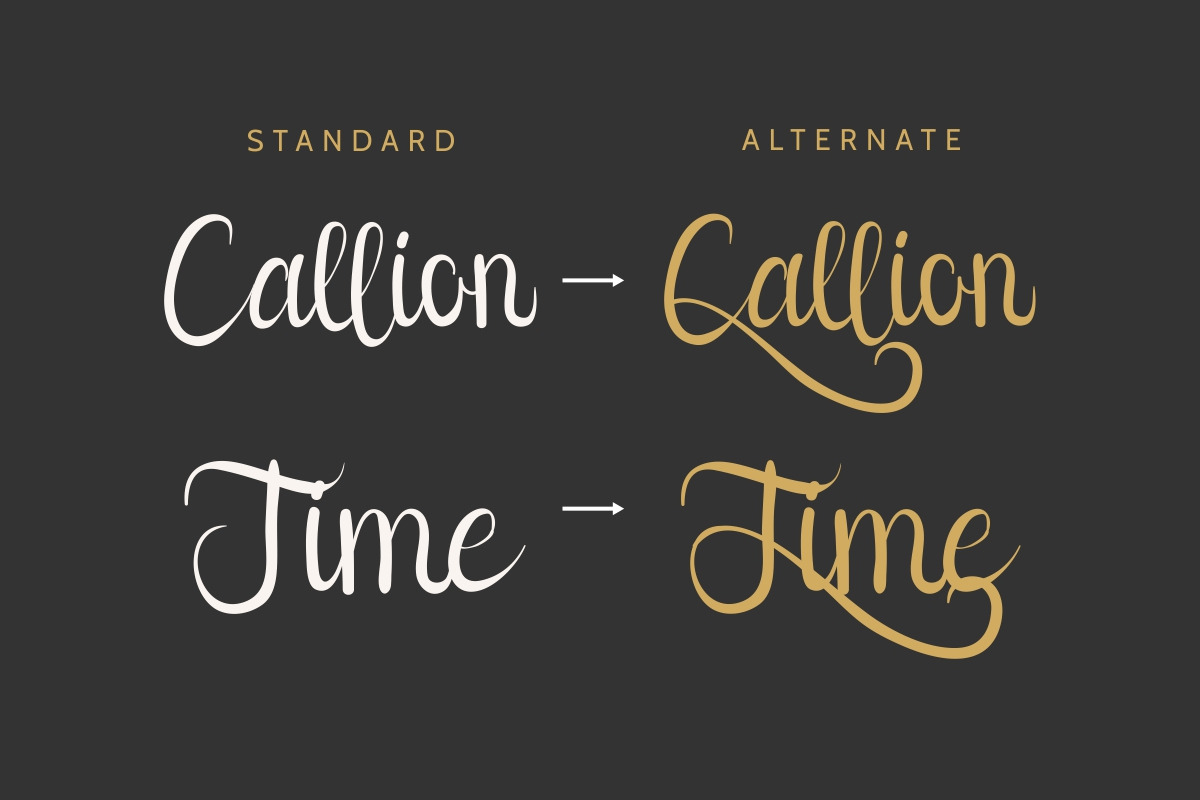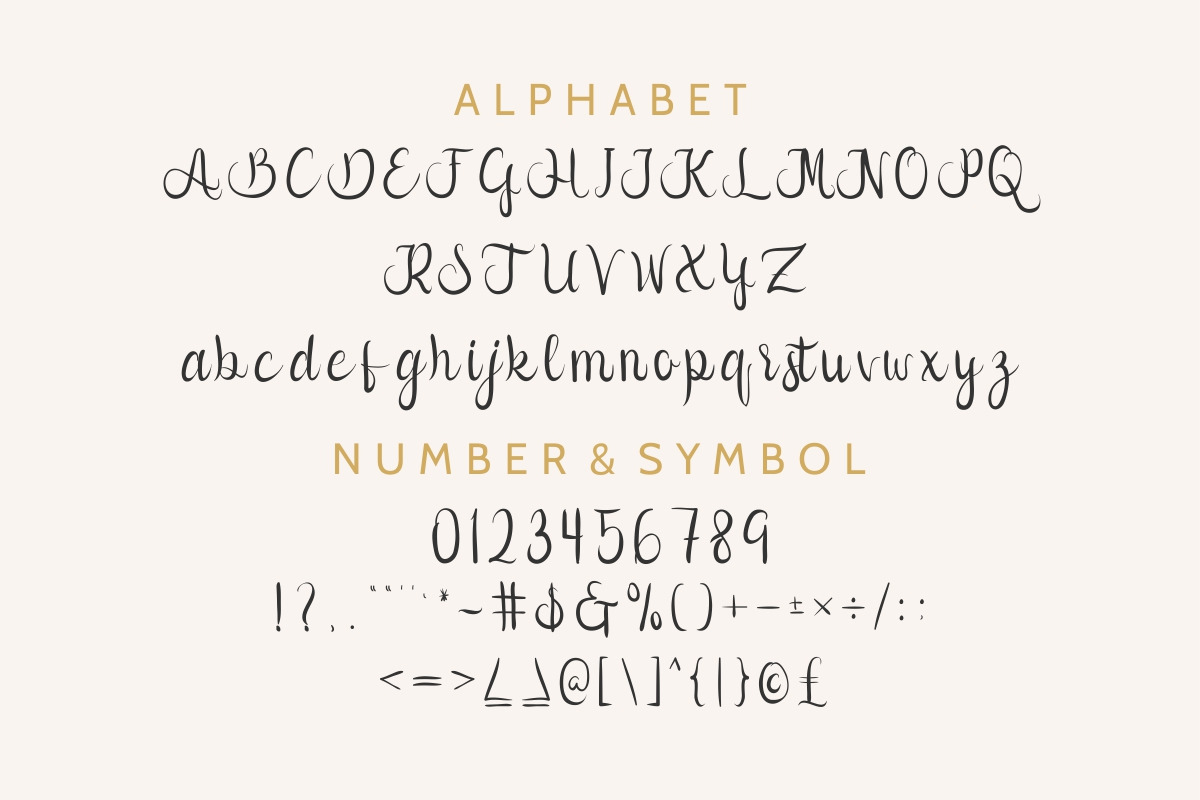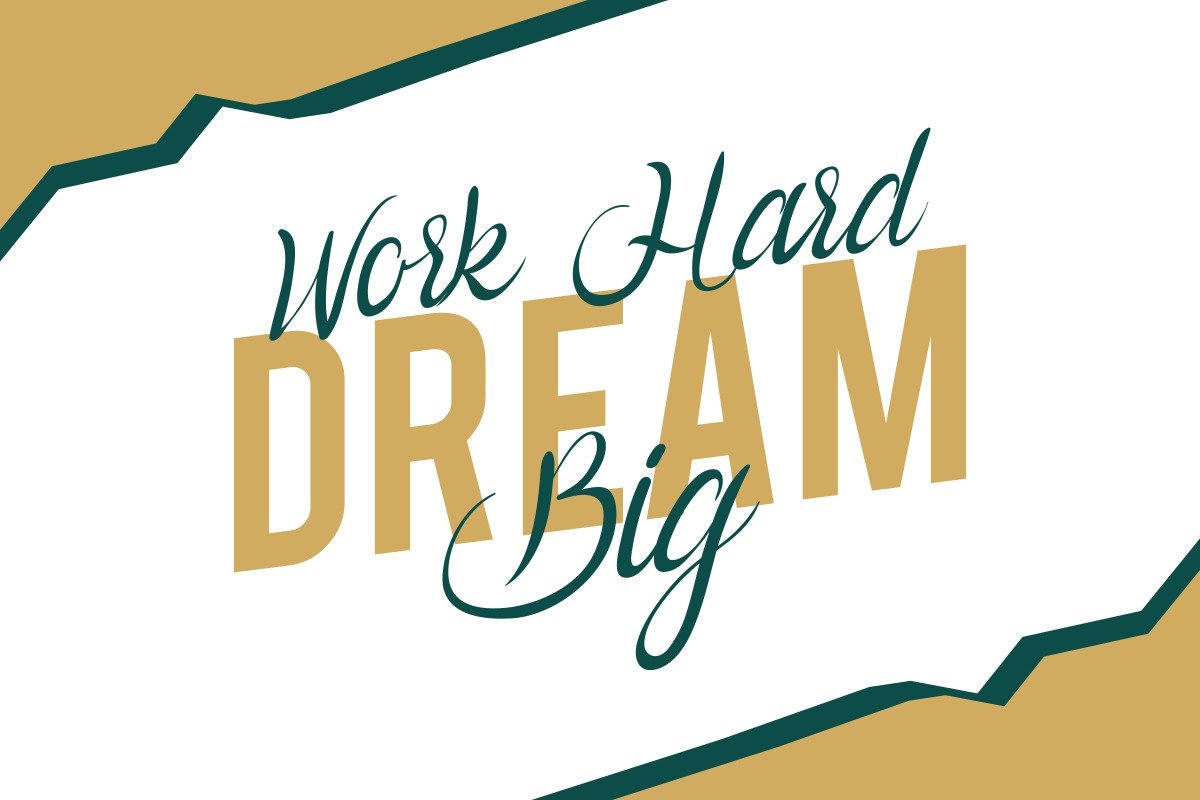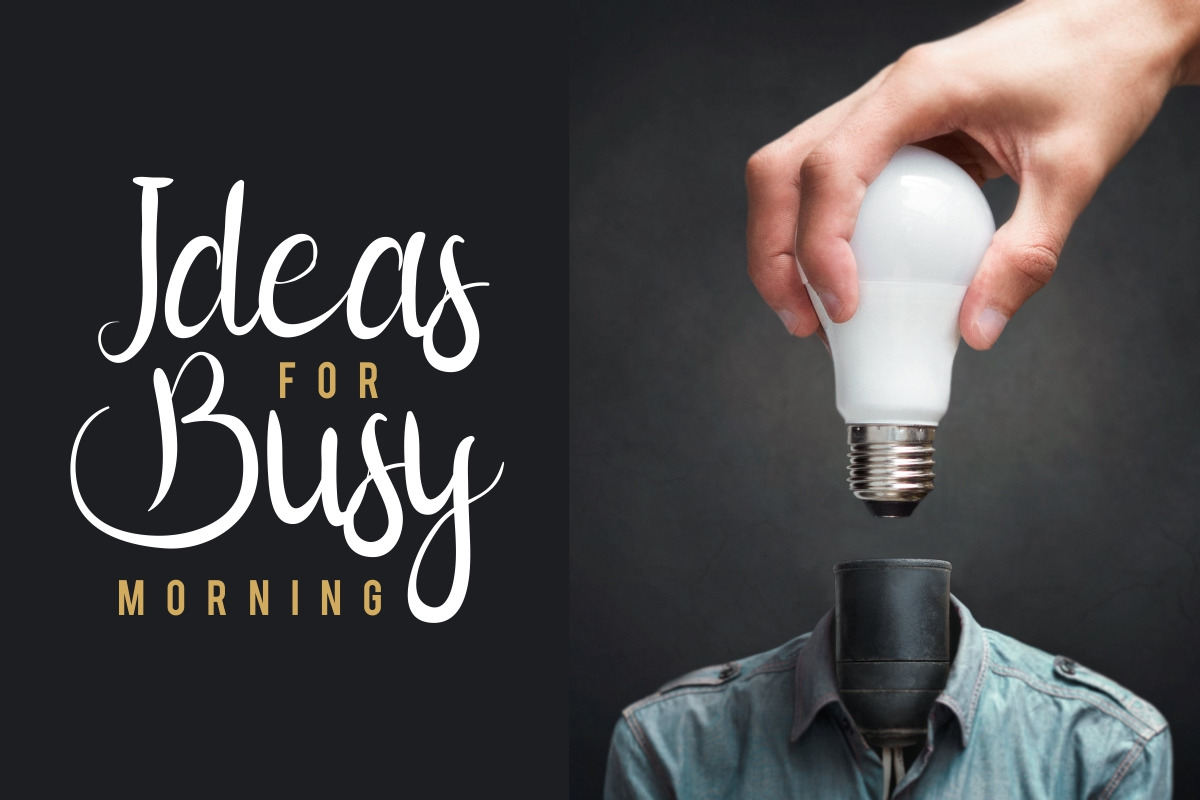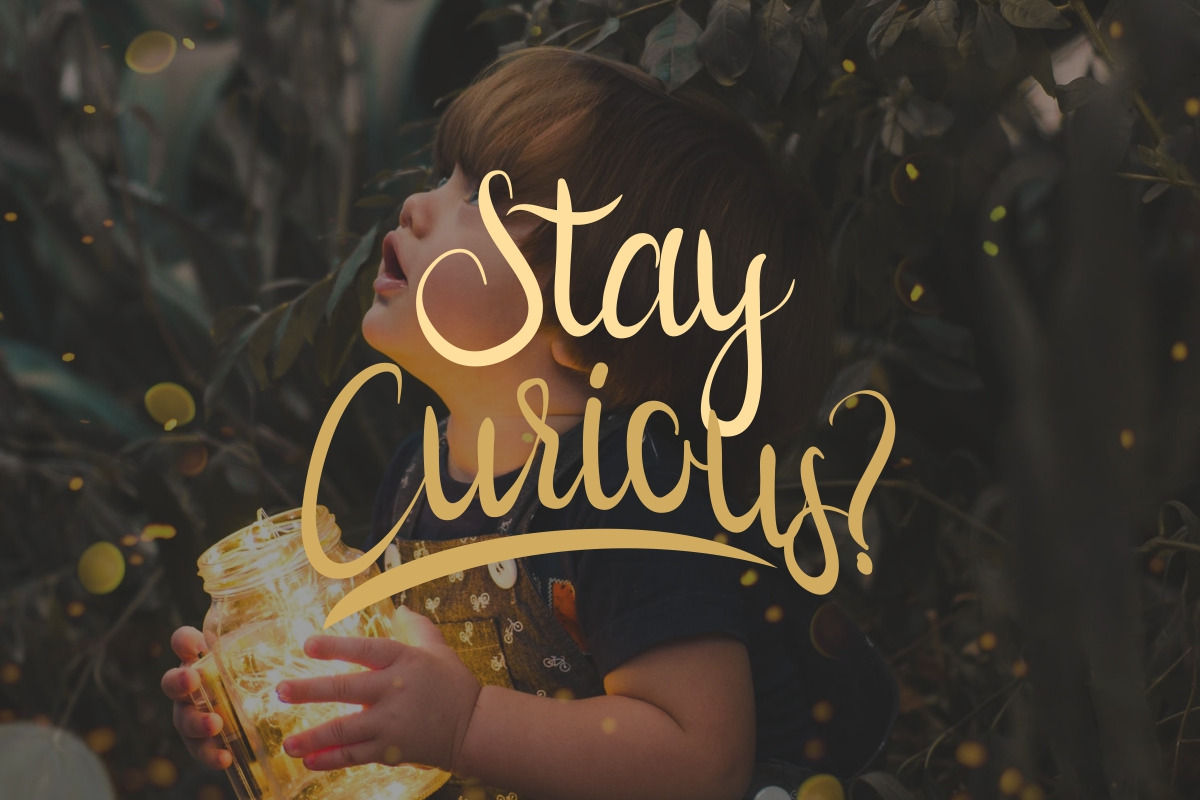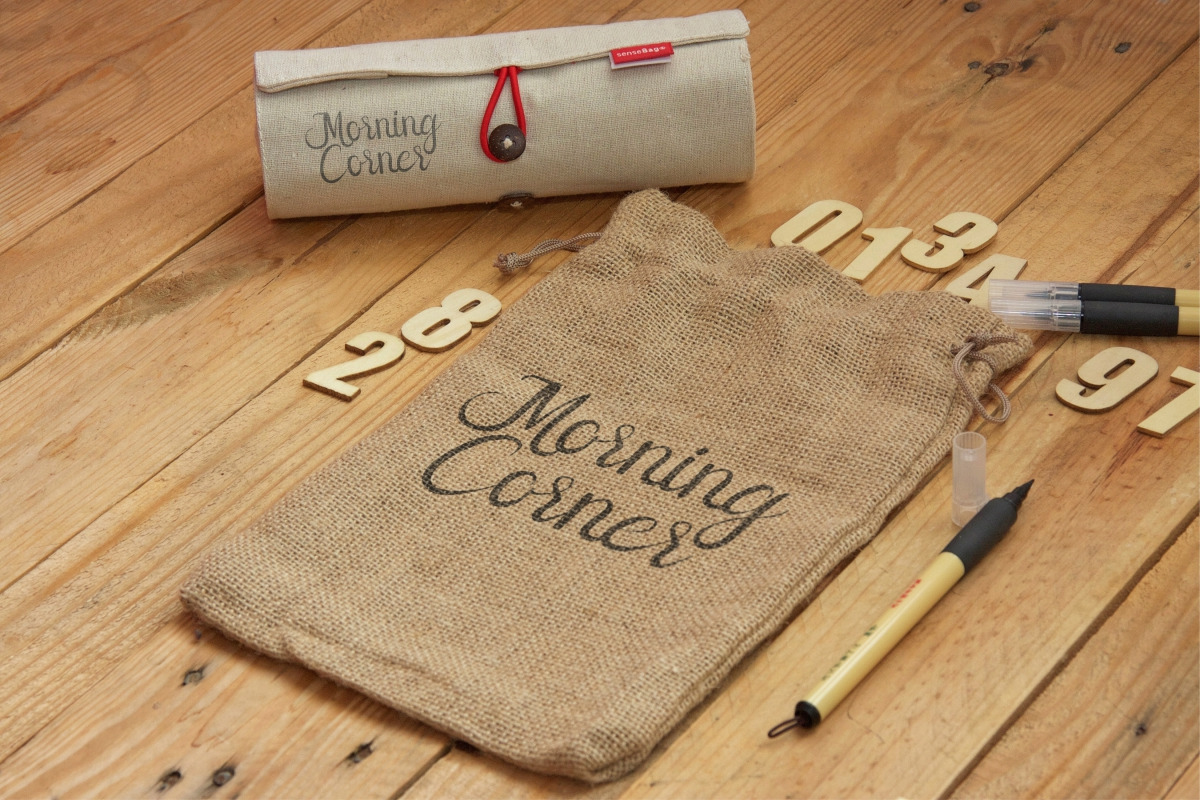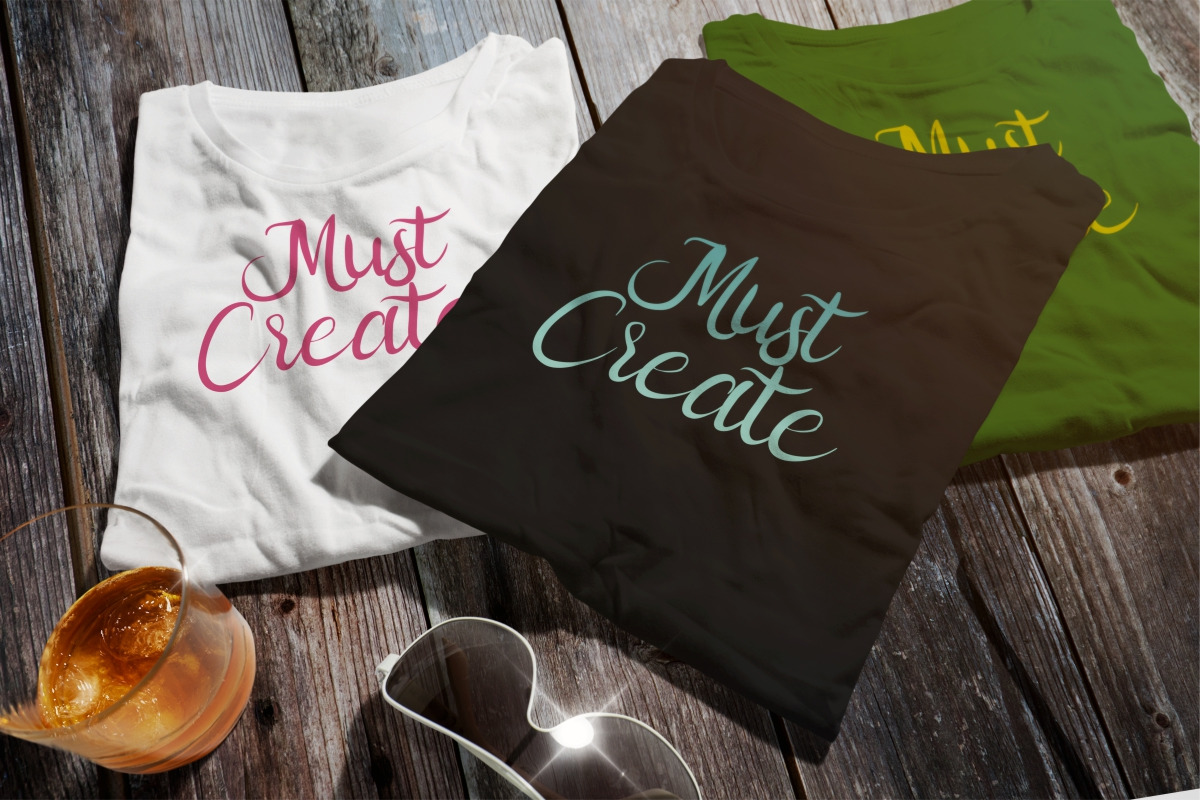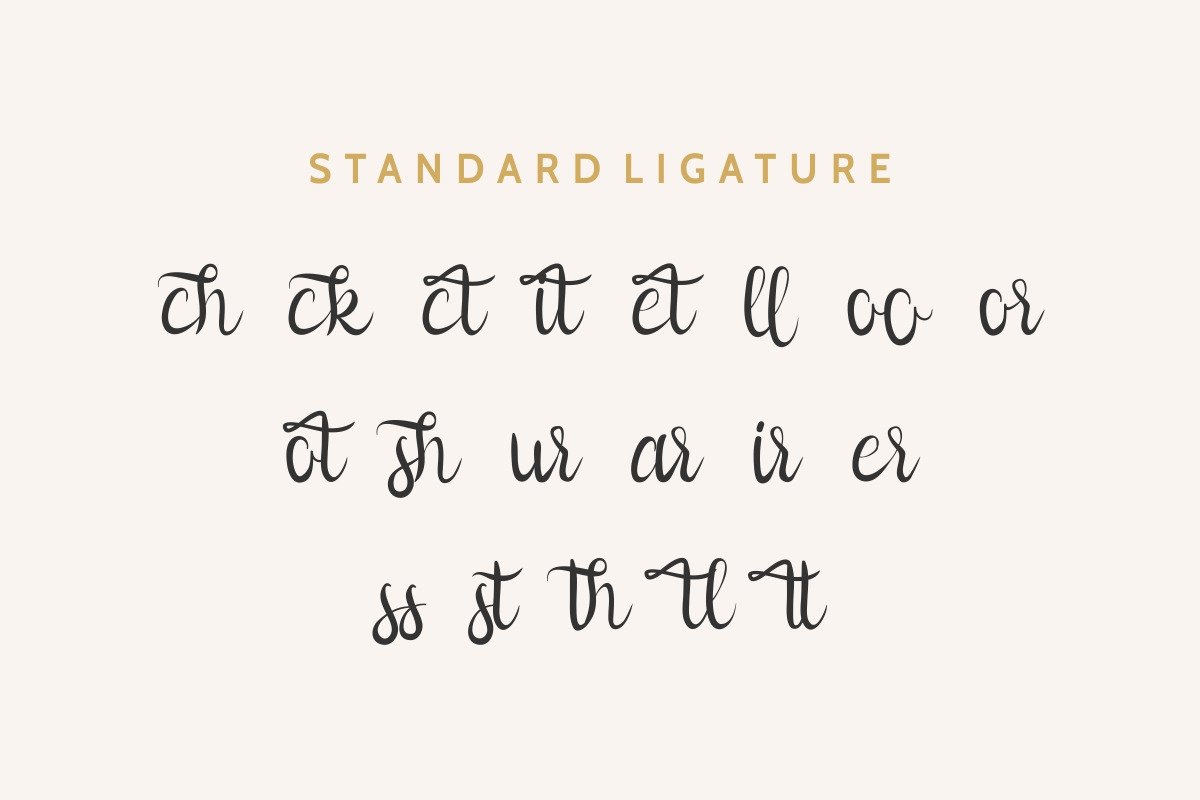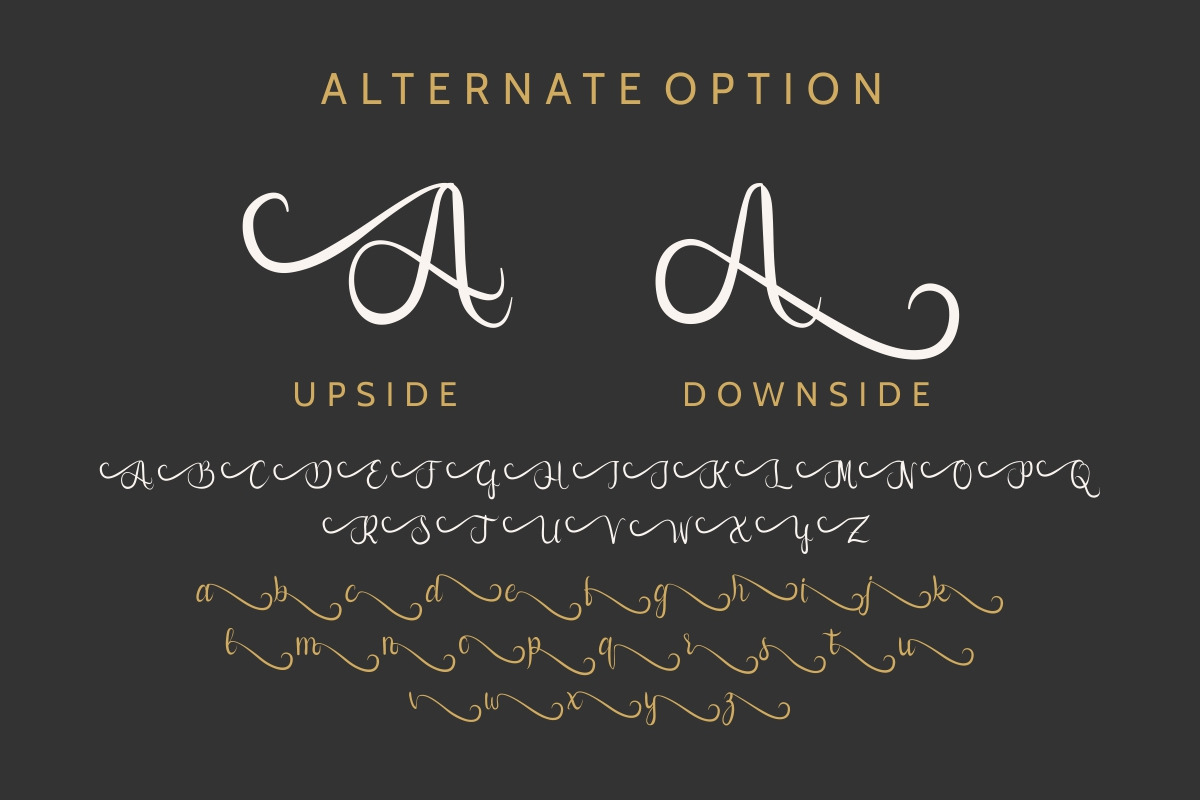
Callion Calligraphy Font
Callion is a handwritten Calligraphy script Font. It has standard regular and italic style. Each glyph has 3 alternatives characters: standard, upside tail or downside tail :)
Great for branding, logo, stationery, business card, invitation, flyer, brochure etc. There are many industries that is suitable for this font : wedding, makeup, artist, photography etc